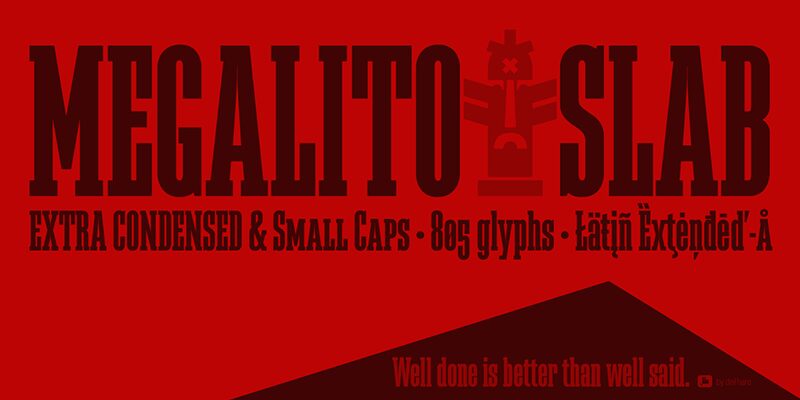
Megalito Slab is a display font of geometric construction, very vertical, with extra condensed proportion for the creation of large titles with significant savings in horizontal space, it has an extended character table (805 glyphs) that includes small letters, 7 numeral sets, fractions dynamics with numbers and letters, collection of currency symbols, ligatures, alternative letters and etc.
This retro-style typography refers to the design of posters and posters made from the mid-20th century until today. Megalito Slab comes in 3 styles: Slab and Stripe can be combined in layers to create multicolored typographic titles and an Outline version for use in big headlines.
Megalito Slab SC ExtCond
Megalito Slab Serif is a display font of geometric construction, very vertical, with extra condensed proportion for the creation of large titles with significant savings in horizontal space, it has an extended character table (805 glyphs) that includes small letters, 7 numeral sets, fractions dynamics with numbers and letters, collection of currency symbols, ligatures, alternative letters and etc.
This retro-style typography refers to the design of posters and posters made from the mid-20th century until today. Megalito Slab comes in 3 styles: Slab and Stripe can be combined in layers to create multicolored typographic titles and an Outline version for use in big headlines.